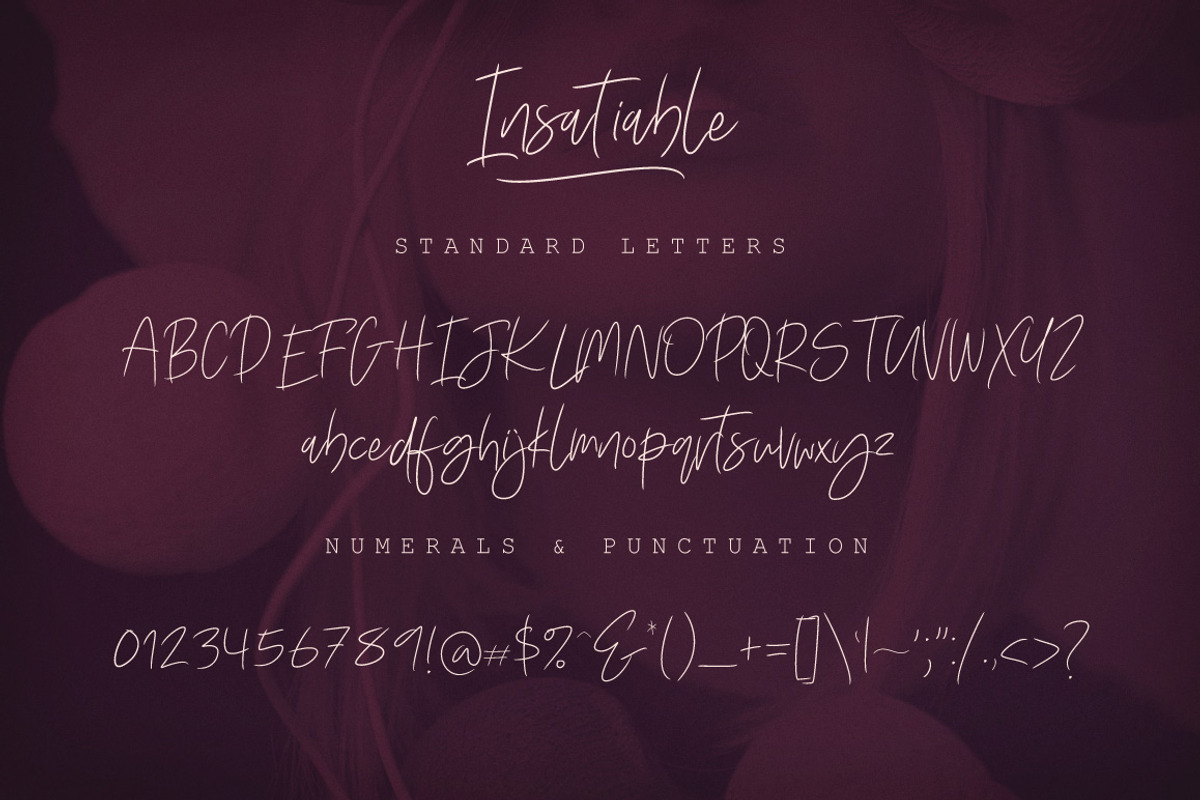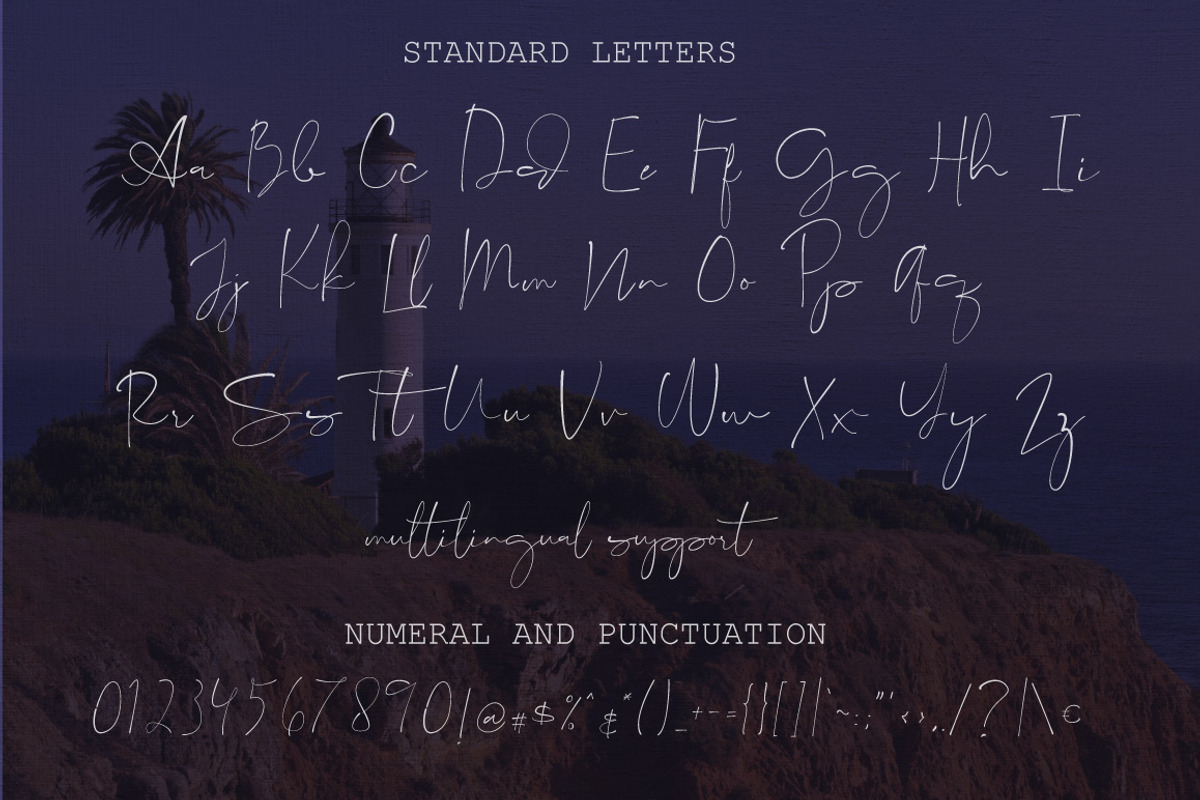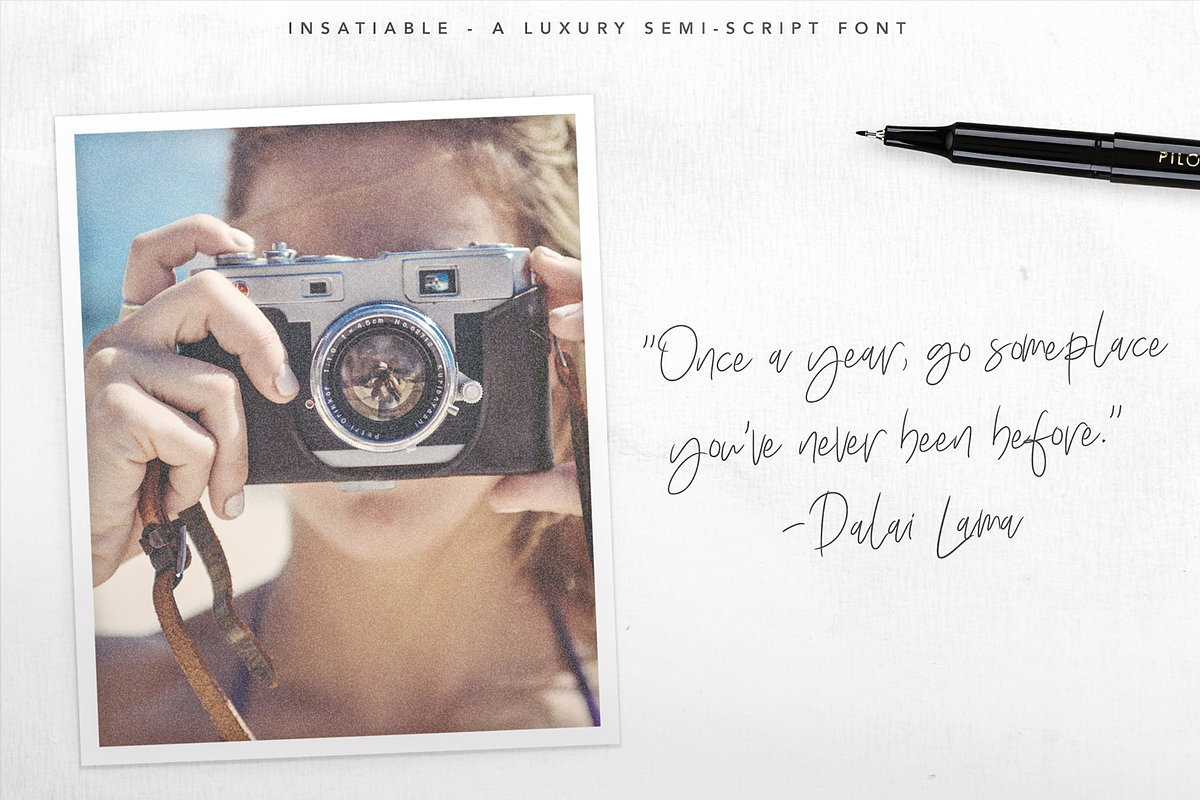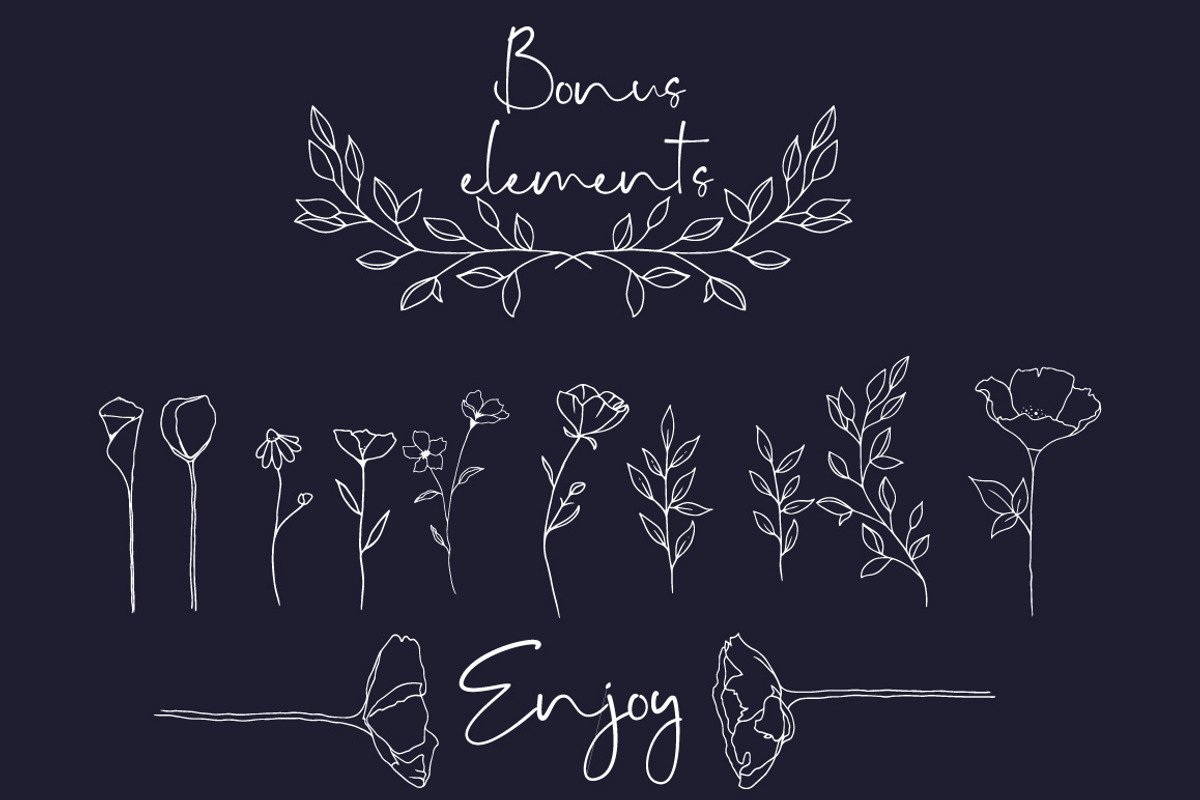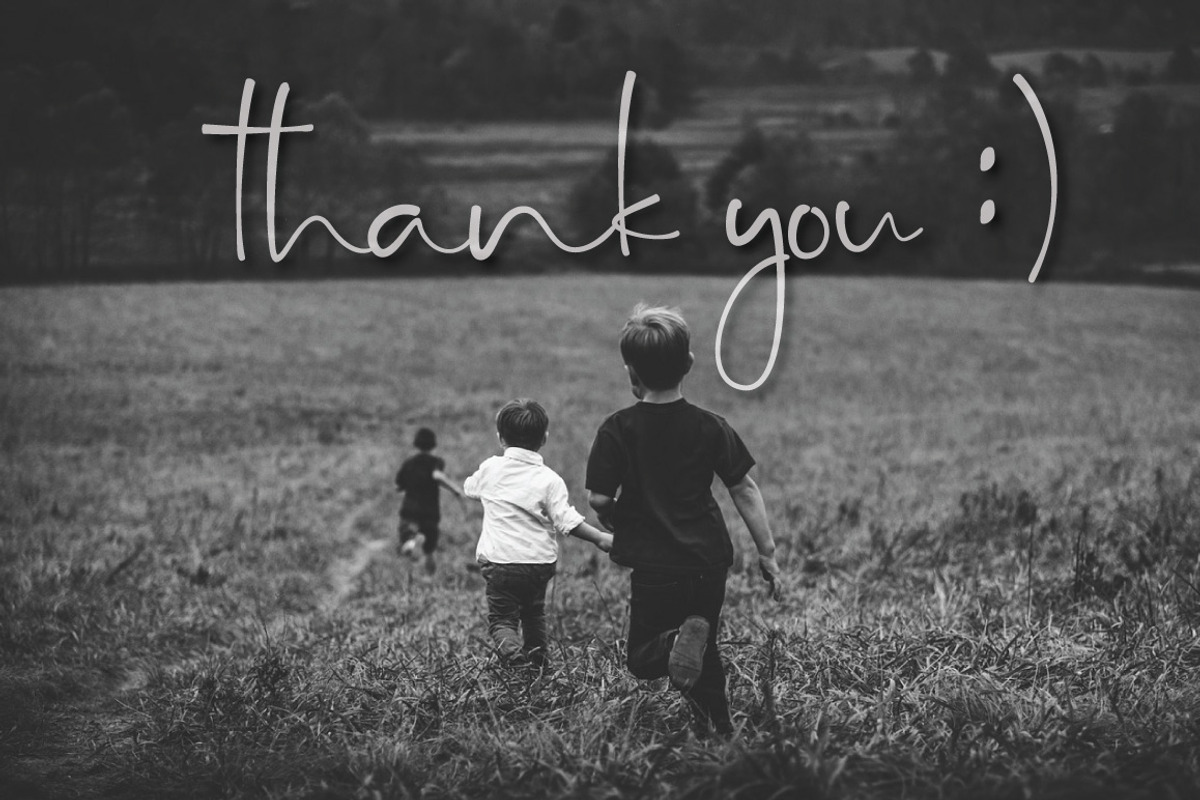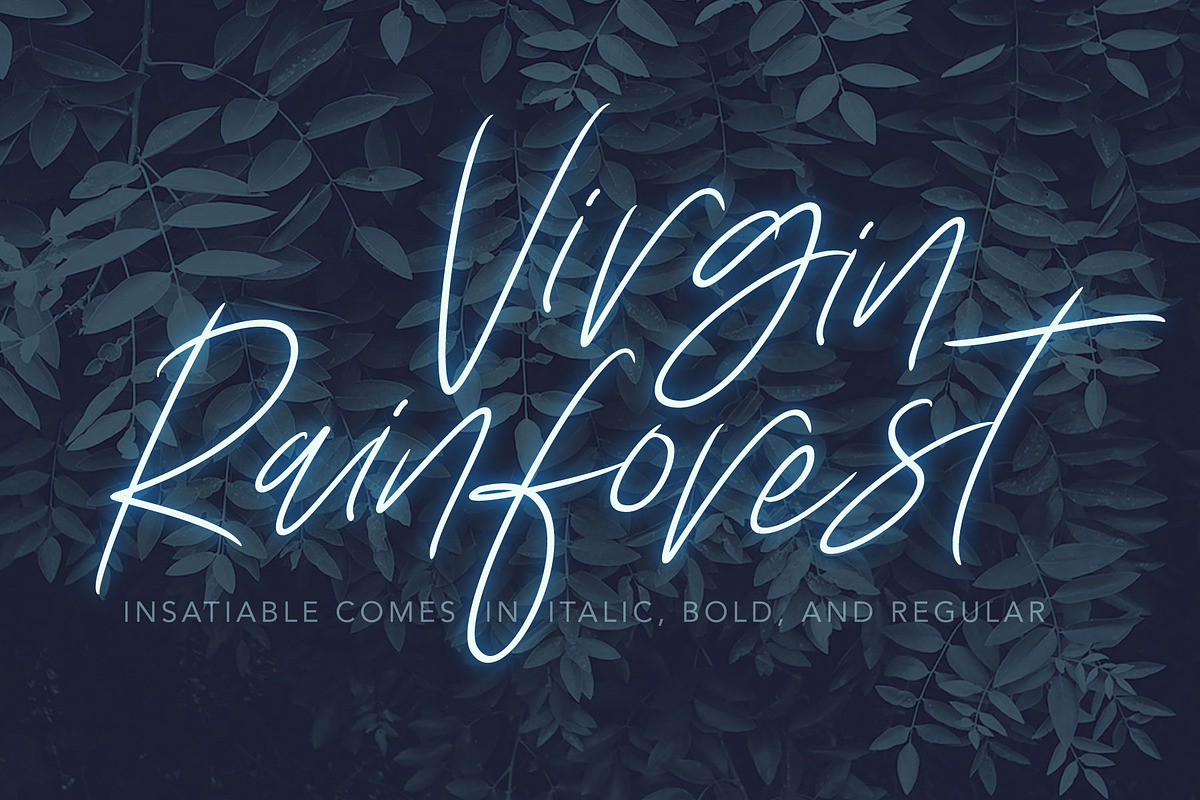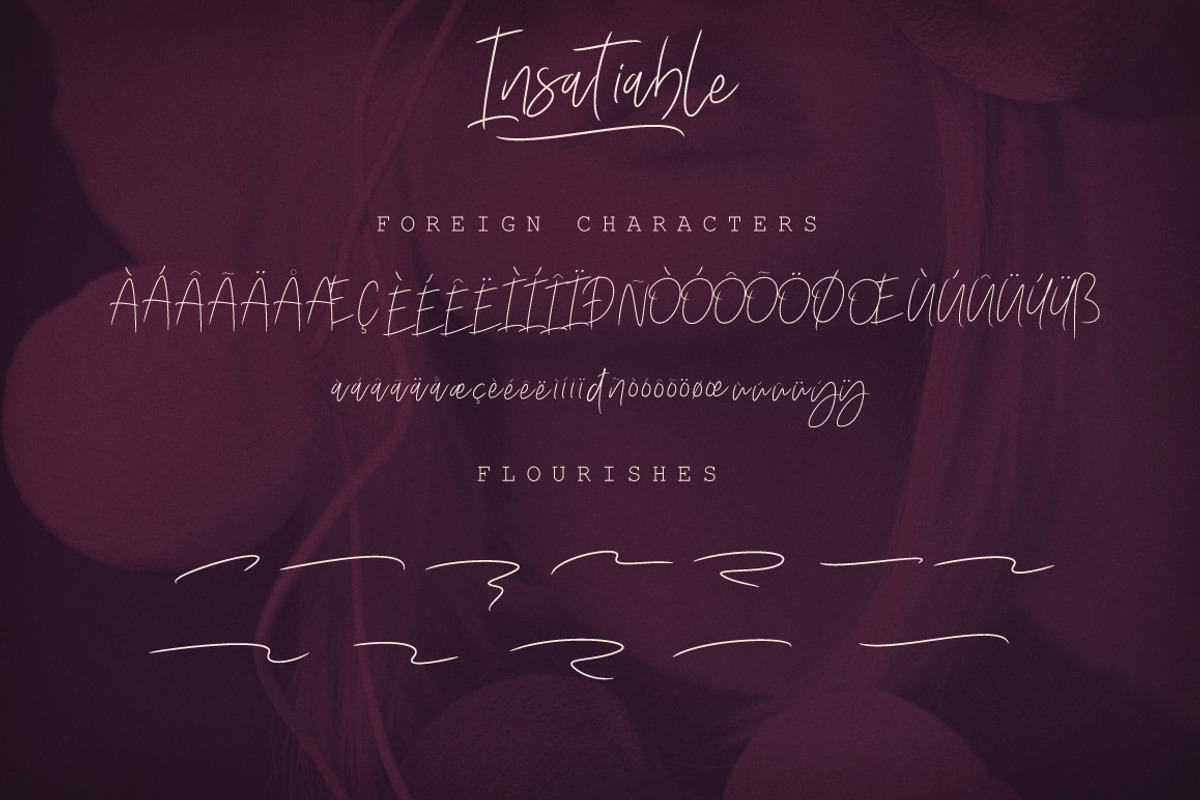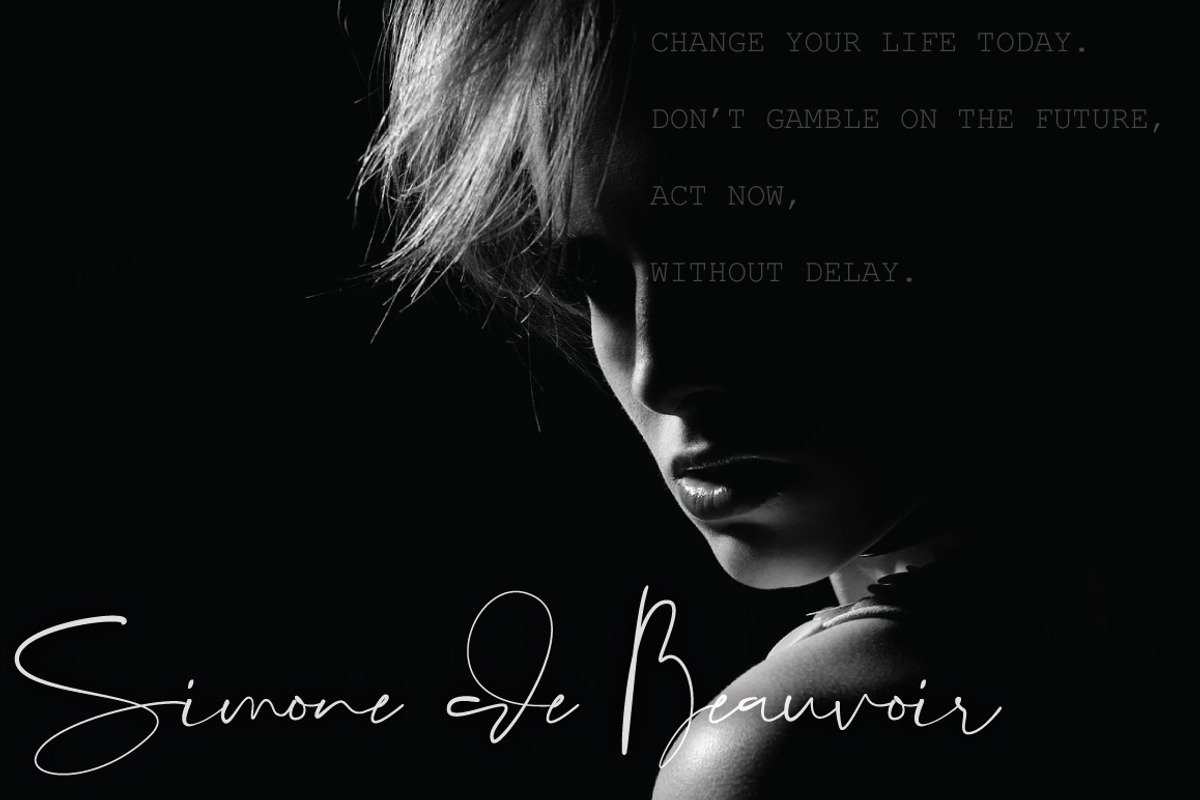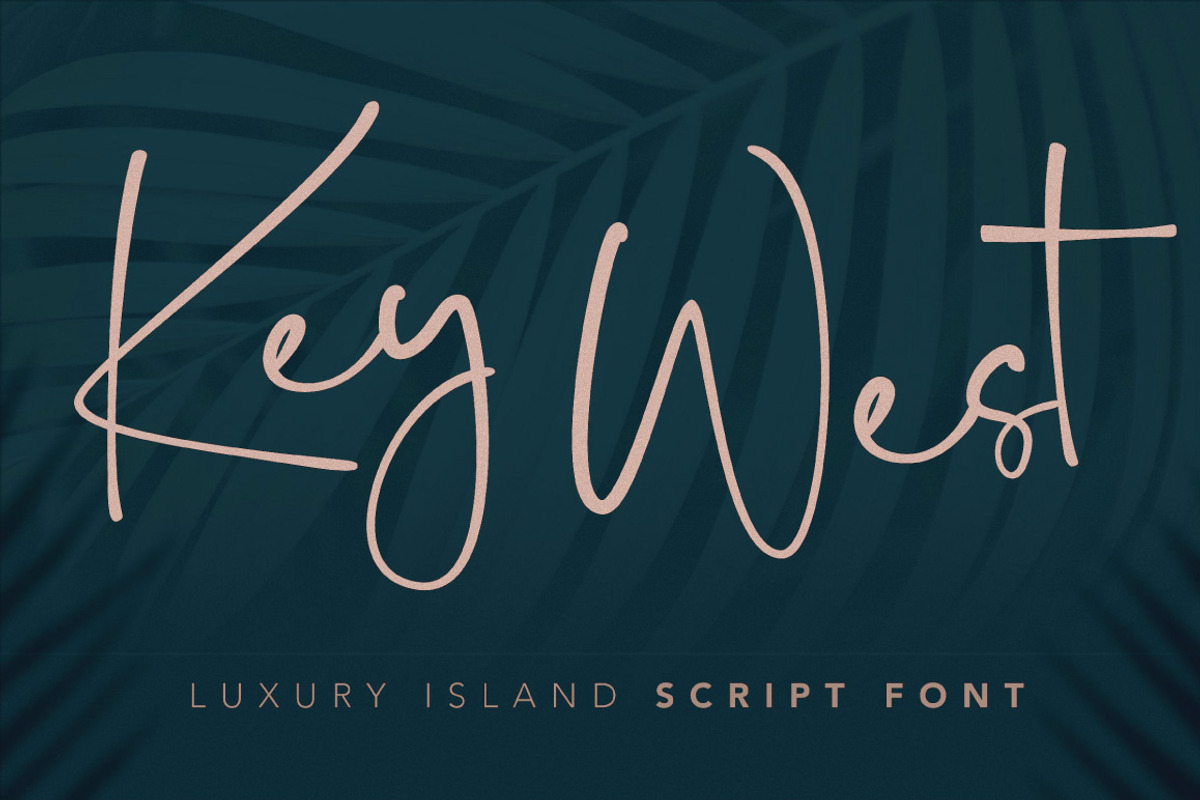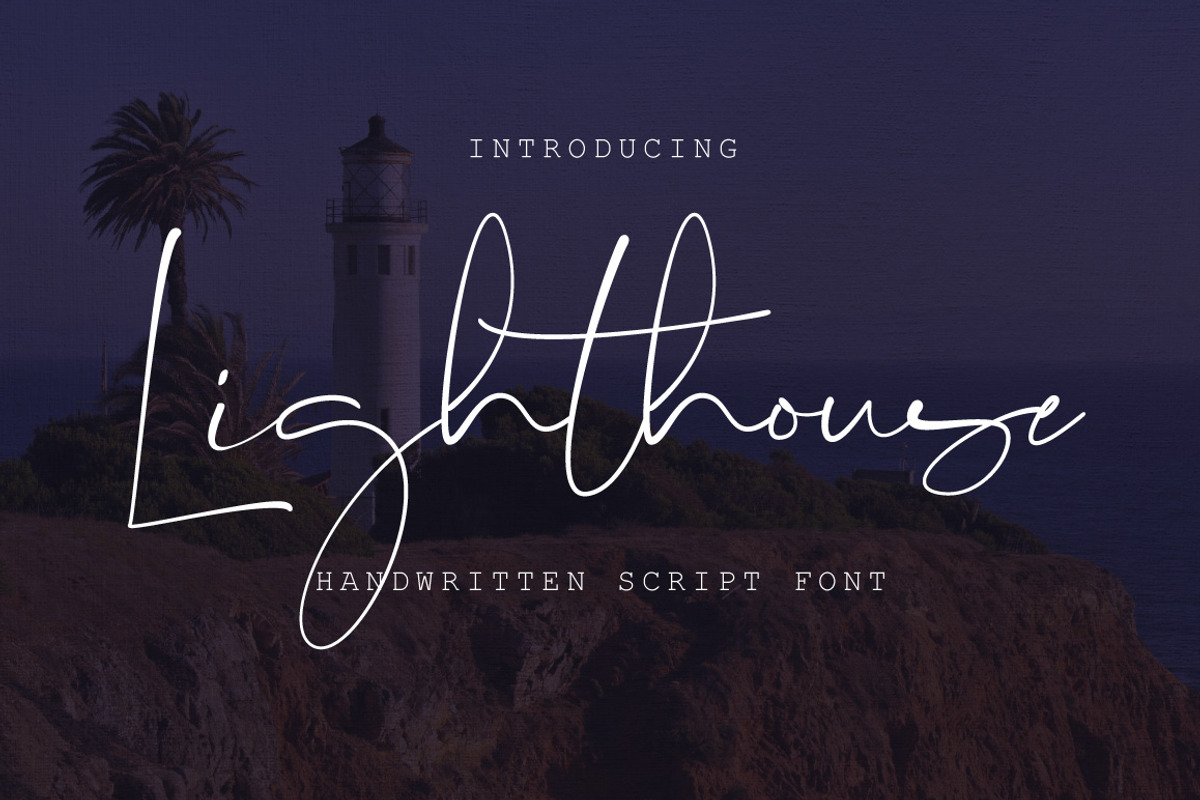
Lovely Script Bundle
Budapest Font Family
Insatiable Script Font
- 7 Hanndmade Wreath ( Freebies )
- 12 Flourishes
Key West Script Font
- A handwritten script font containing : A upper & lowercase characters, numerals and a large range of punctuation.
Lighthouse Script Font
- Multilingual Support is included for the following languages: Cornish, Danish, English, Estonian, Faroese, Filipino, Finnish, French, Friulian, Galician, German (Switzerland), Gusii, Icelandic, Indonesian, Irish, Italian, Kabuverdianu, Kalenjin, Kinyarwanda, Luo, Luxembourgish,Norwegian Bokmål, Norwegian Nynorsk, Portuguese, Romansh, Scottish Gaelic, Spanish, Swedish, Swiss German.